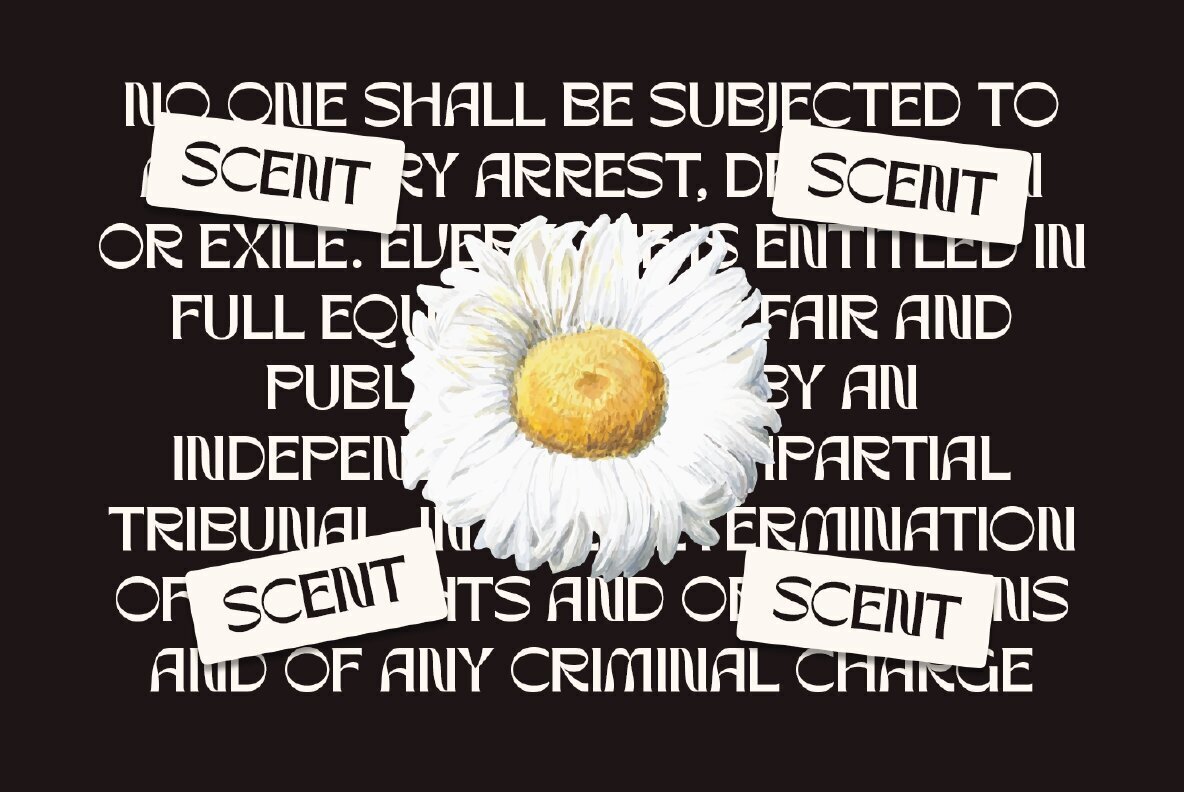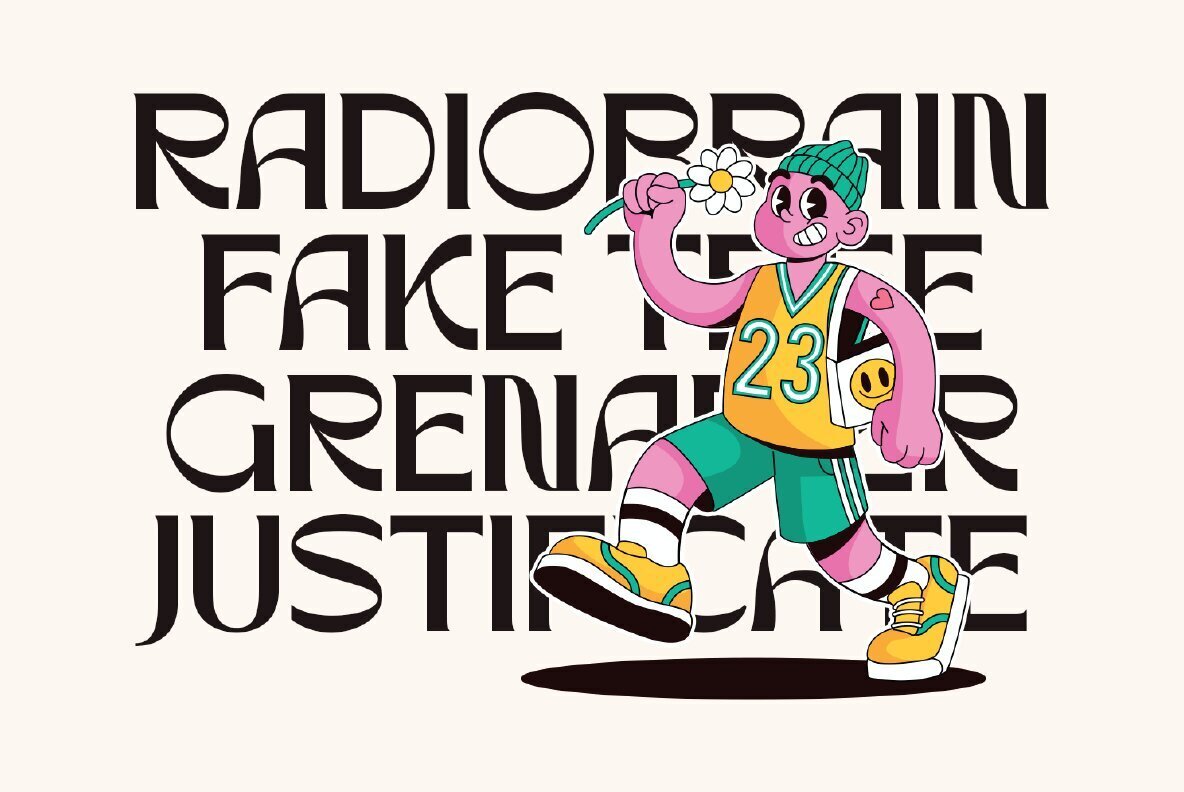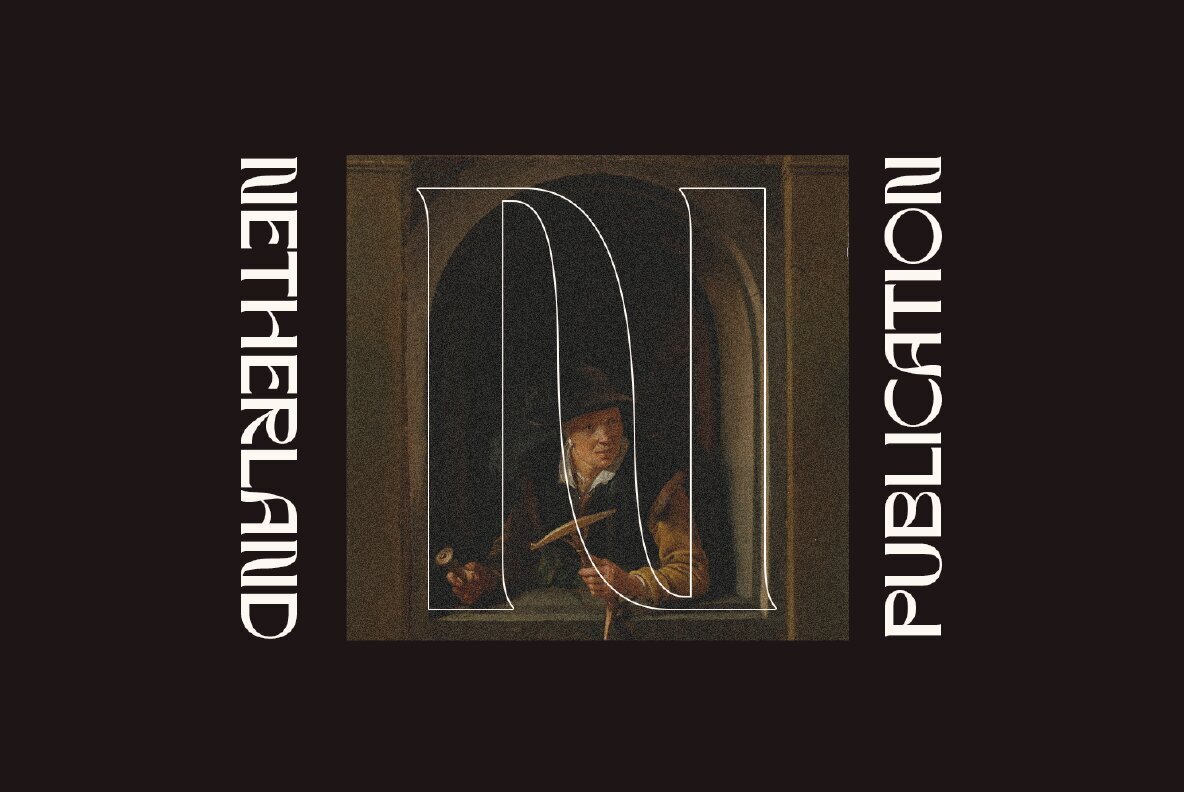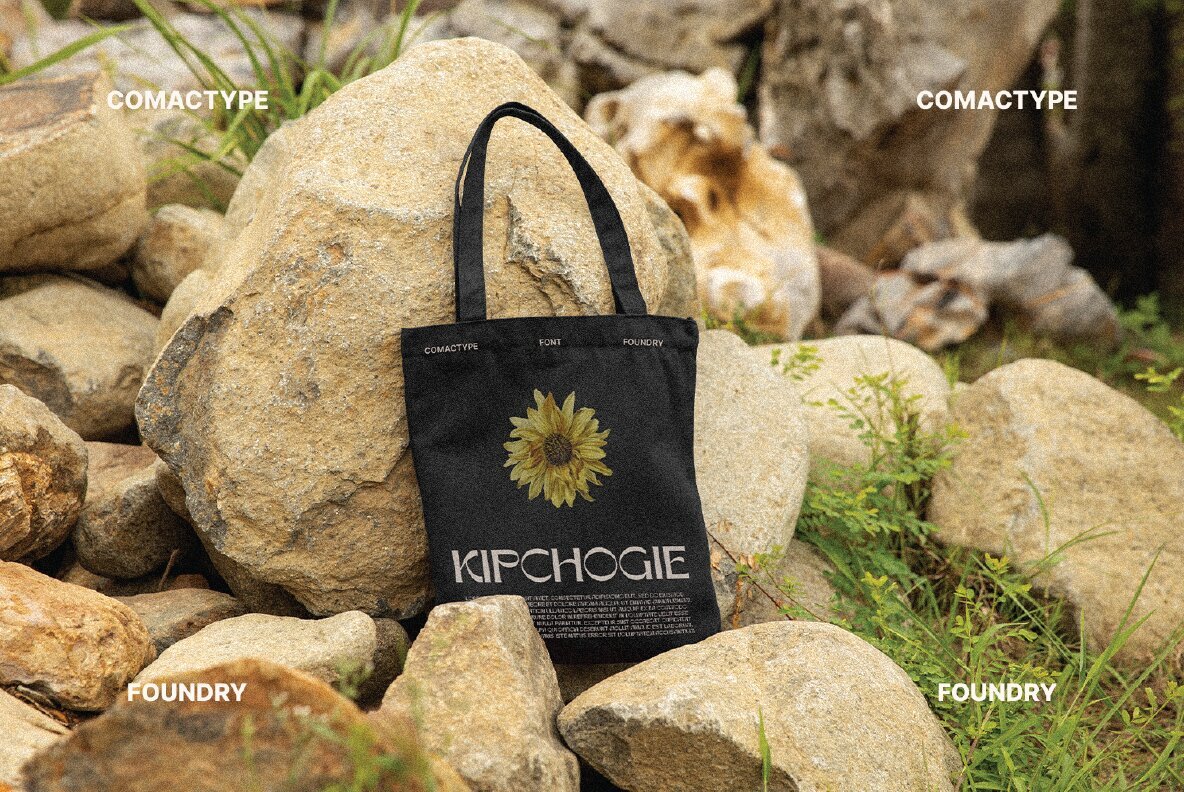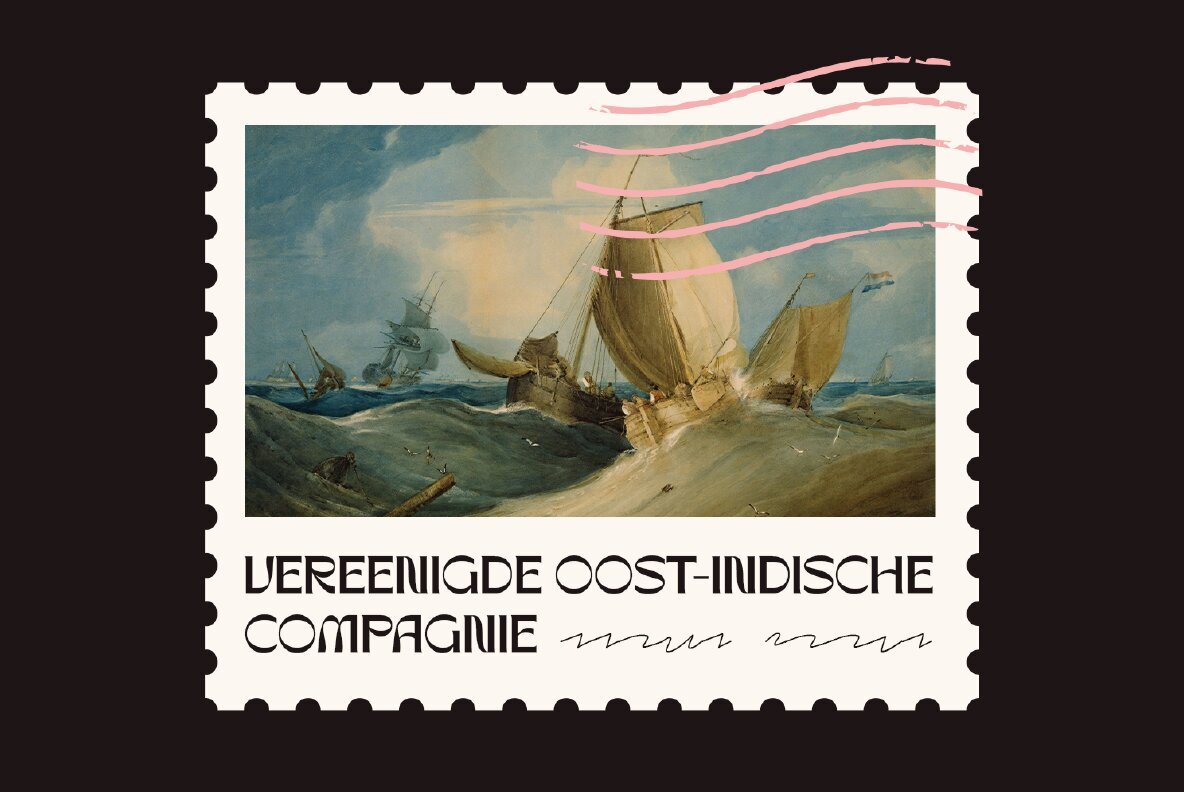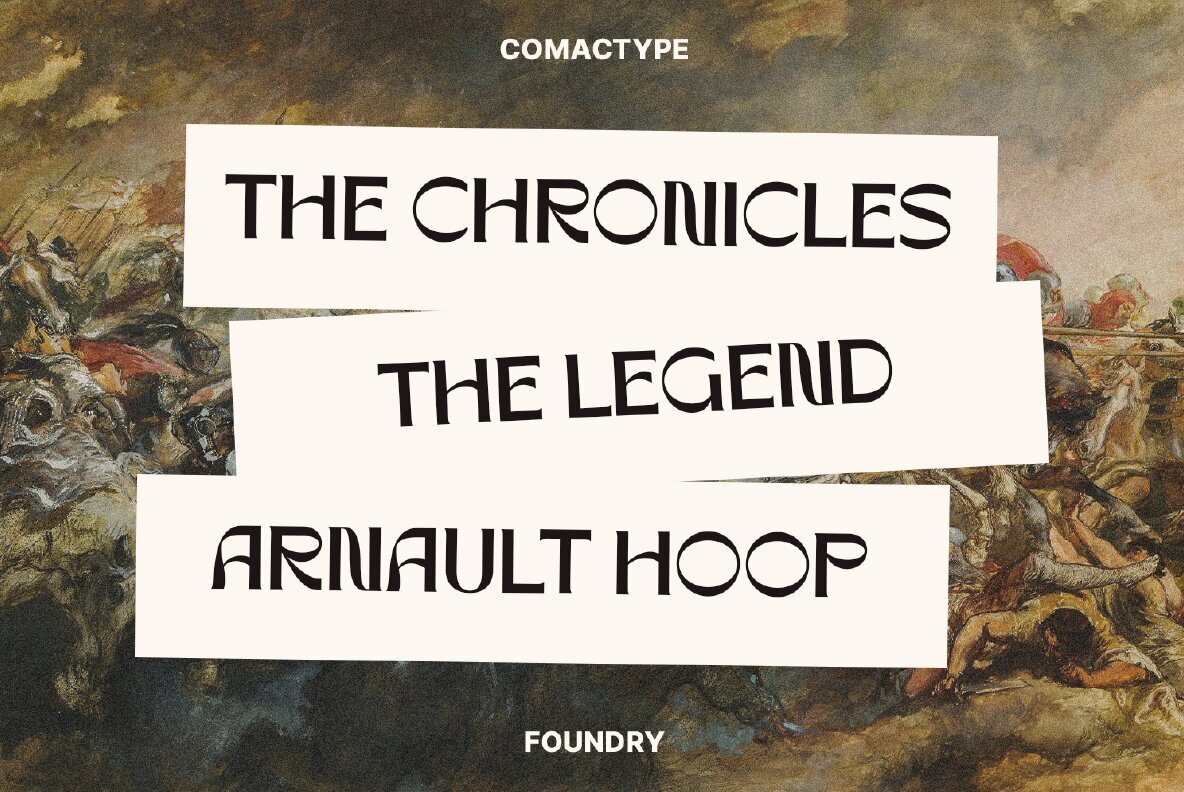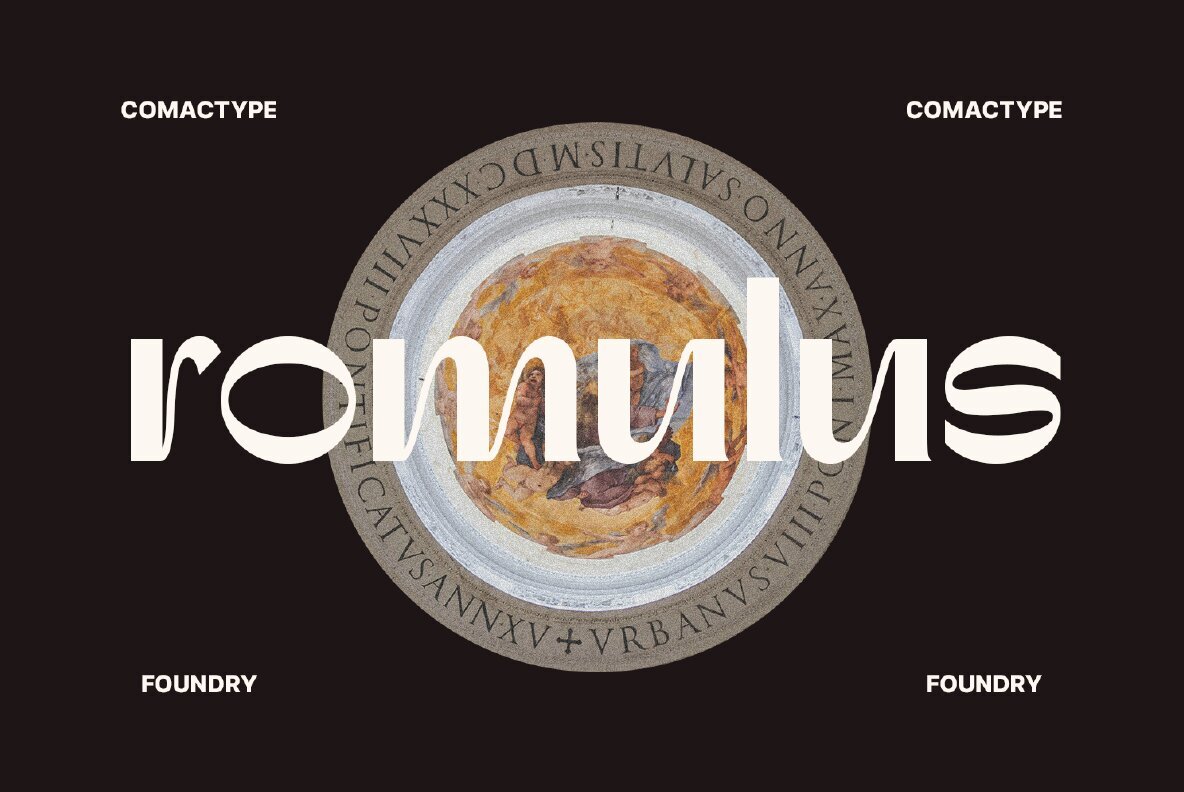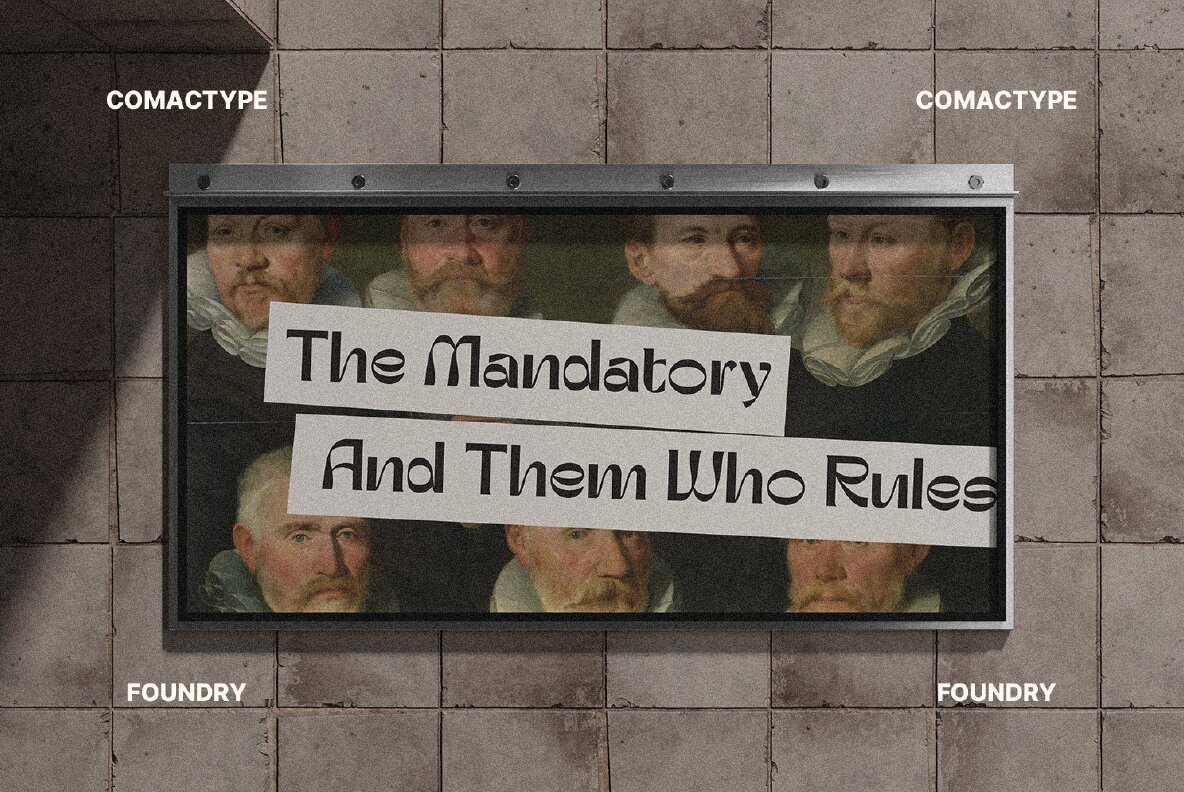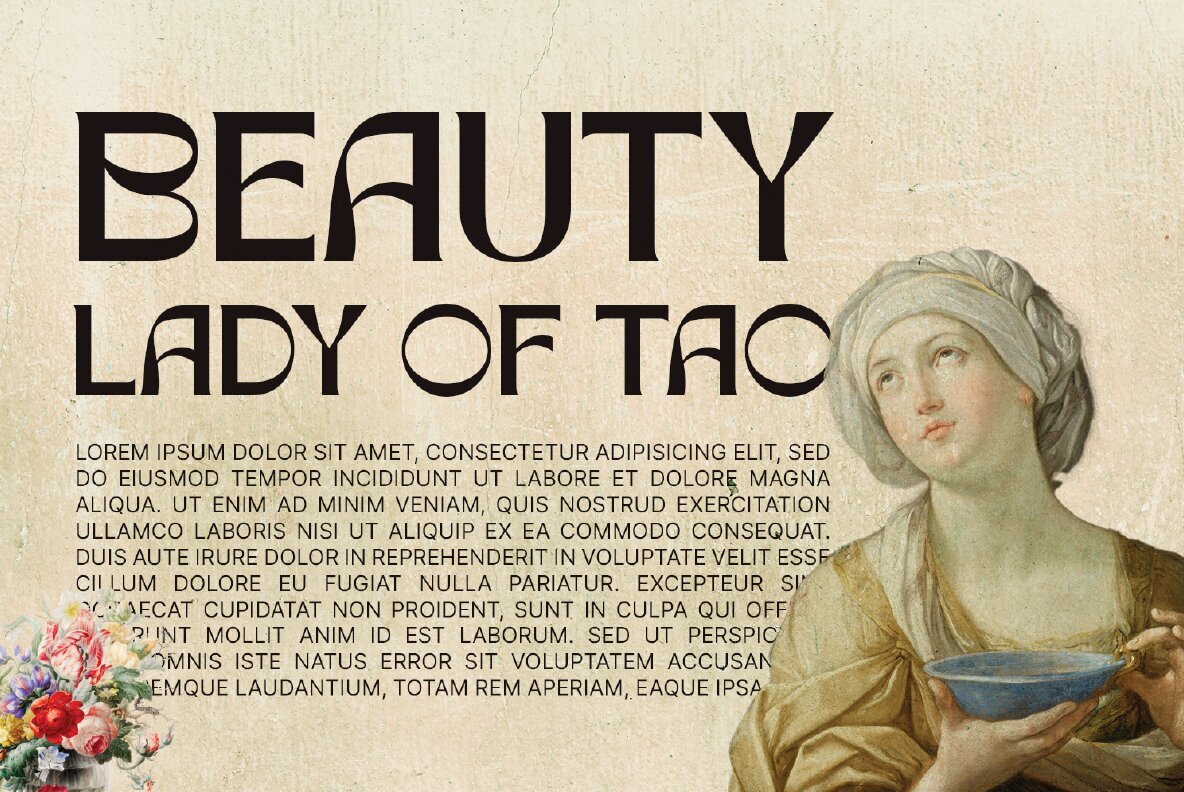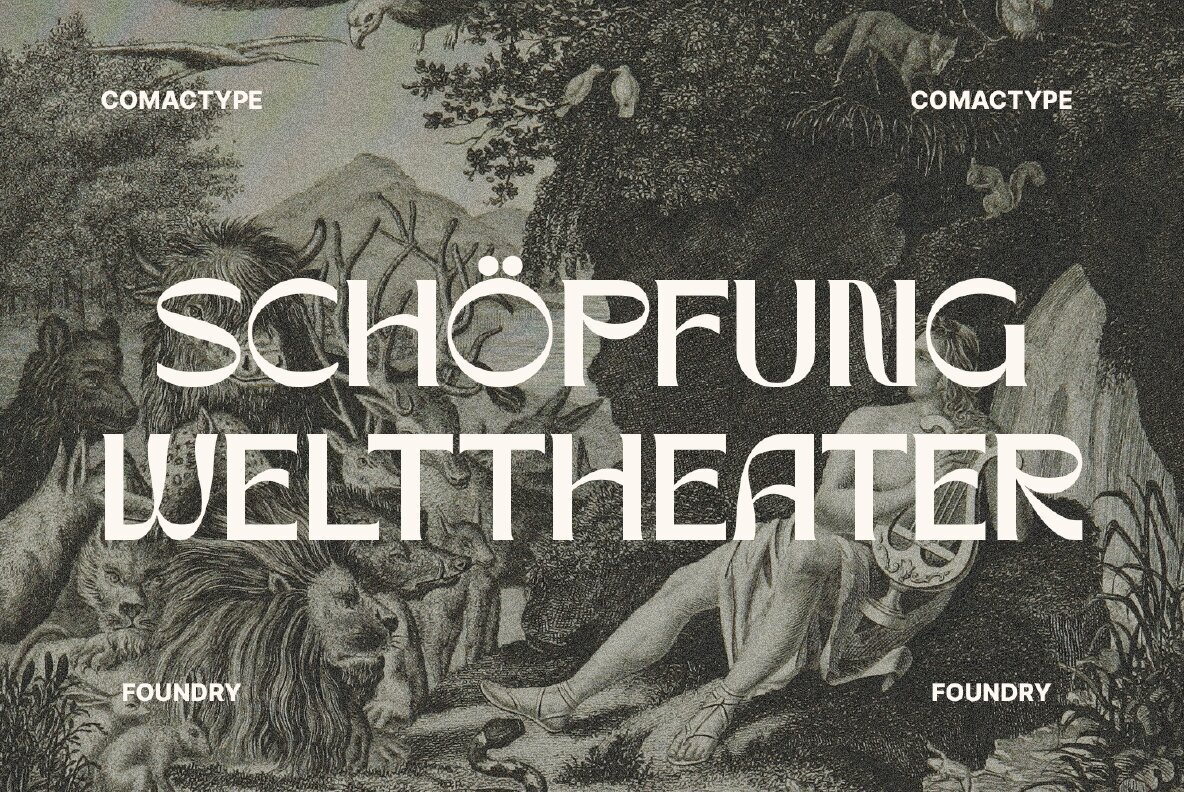
Rynogen Font
Rynogen Regular
Rynogen is a decorative display typeface by Comac Type Foundry, featuring a geometric, futuristic, and experimental style. Its unique letterforms combine sharp cuts and dynamic curves, creating a bold and modern look. Perfect for logos, posters, branding, and editorial design, Rynogen adds a distinctive and creative touch to any project.